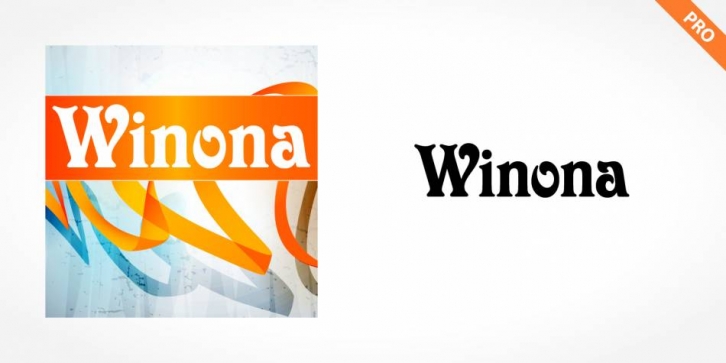
Winona Pro is a display serif font published by SoftMaker.
Winona Pro was inspired by late 19th century display letterforms, and they sought to create a new ornate font in the same style. Winona Pro superbly reflects the refinement of the late 19th Century.